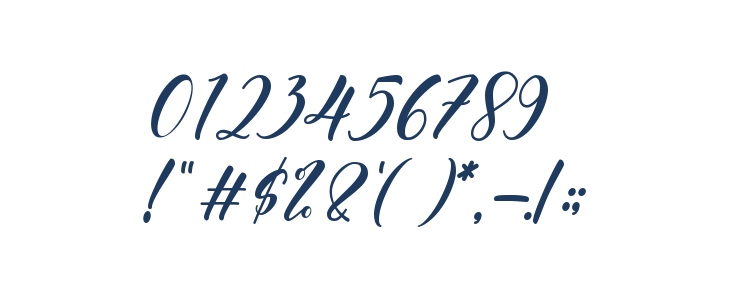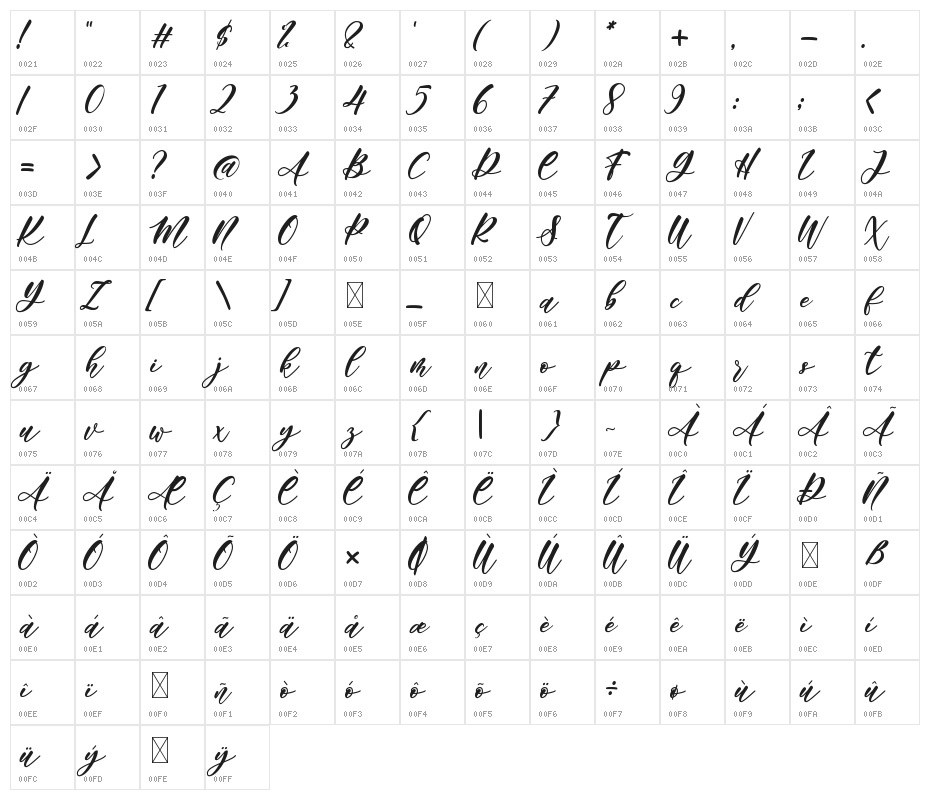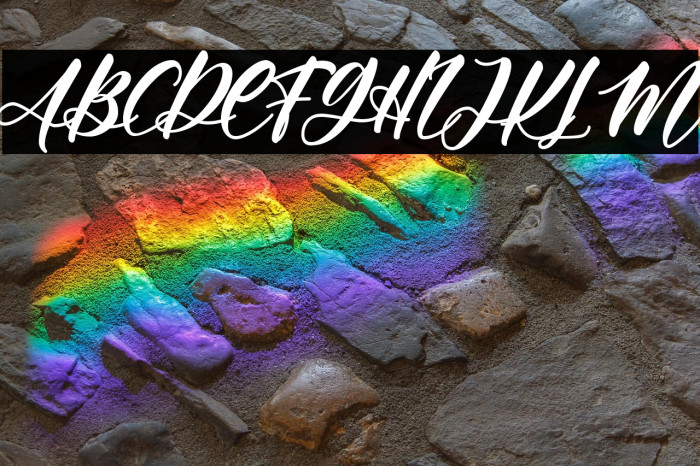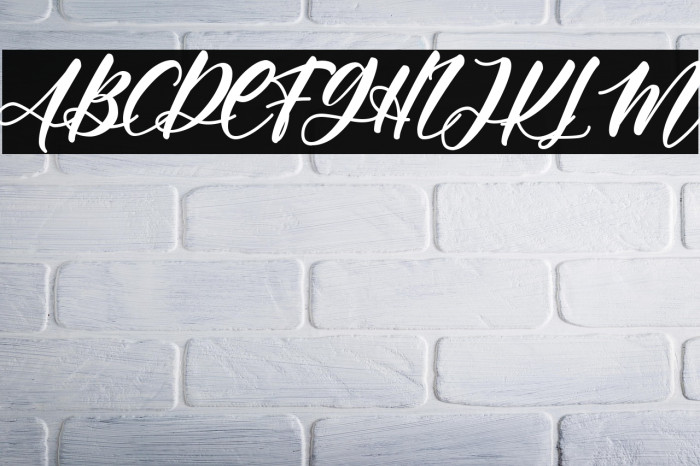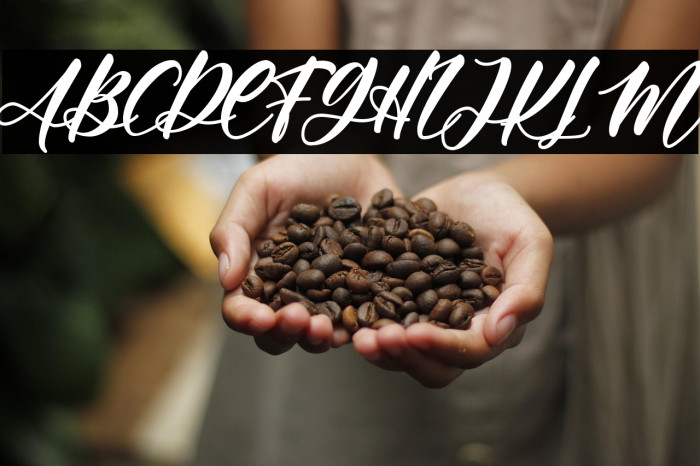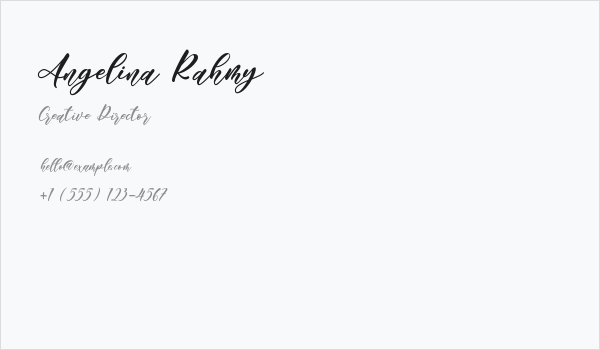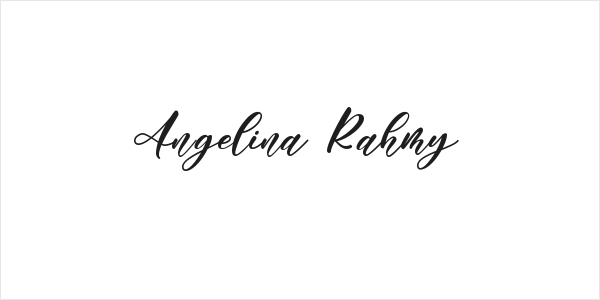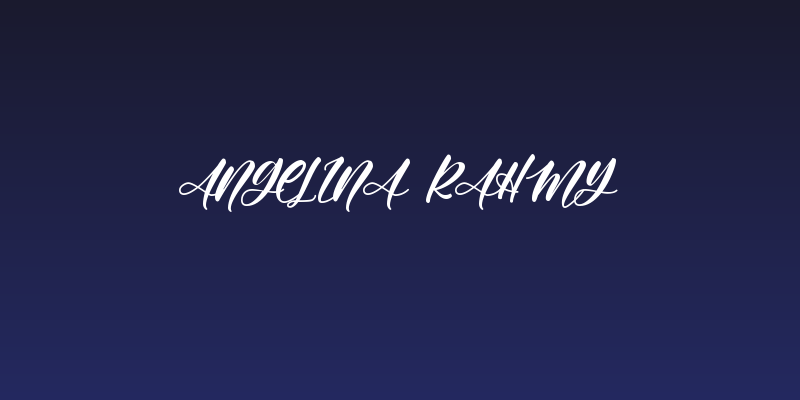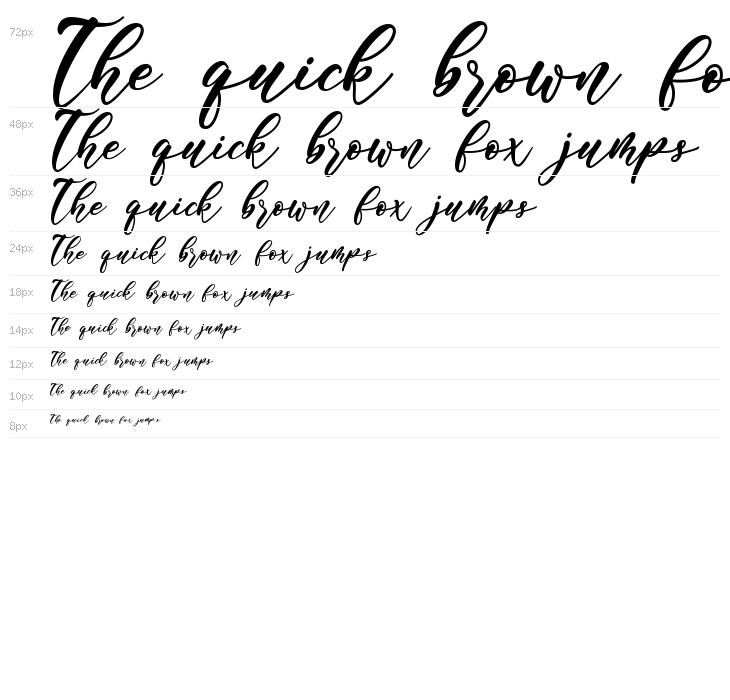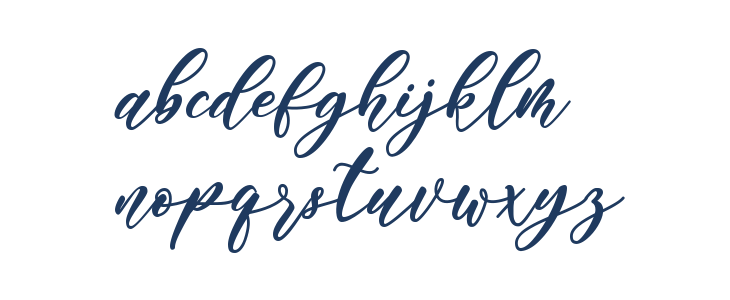
Angelina Rahmy Font
Angelina Rahmy Description
This elegant script font features fluid, cursive strokes that convey a sense of sophistication and grace. The characters are connected, creating a seamless flow that mimics natural handwriting. The uppercase letters are bold and prominent, while the lowercase letters maintain a consistent style with slightly more delicate lines. The numerals and special characters are designed to match the overall aesthetic, ensuring a cohesive look across all text. This font's artistic flair makes it ideal for creative projects that require a personal touch.